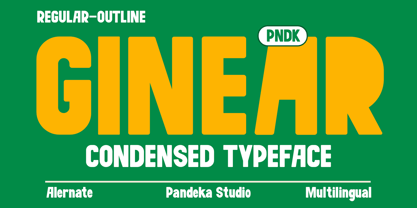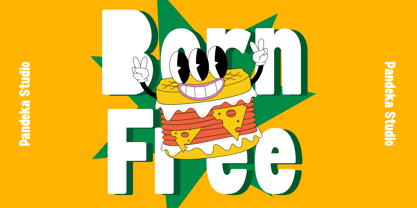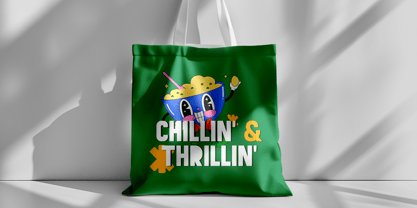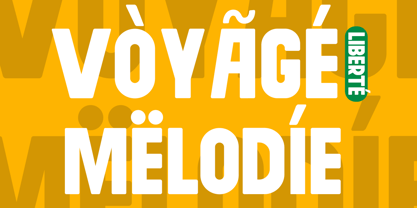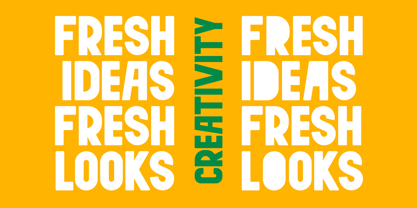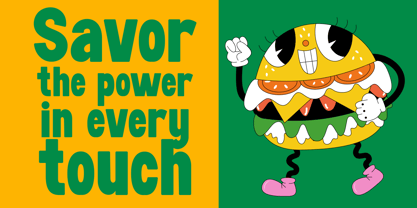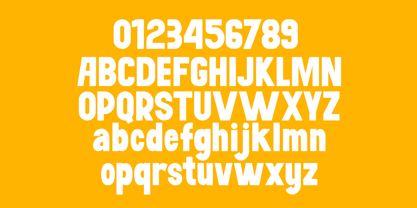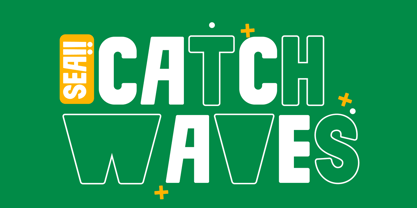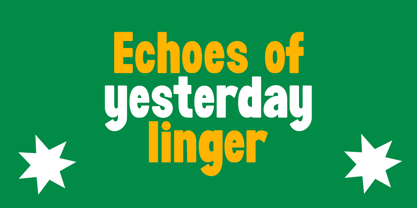
Ginear
by Pandeka Studio
The Ginear Font Family was designed by Sagara Nararya and published by Pandeka Studio. Ginear contains 2 styles and family package options. More about this family
Say hello to Ginear, a playful and condensed sans-serif typeface designed to grab attention and bring life to your projects. With its 2 styles: Regular and Outline, Ginear combines a compact structure with unique shapes that give off a cheerful and vibrant vibe.
Ginear’s letterforms feature carefully rounded corners and balanced proportions, creating a delightful combination of fun and professionalism. The playful yet structured design makes it perfect for a wide range of uses, such as headlines, branding, logos, packaging, posters, and creative designs. Whether you're creating bold statements or playful visuals, Ginear has everything you need to make your ideas stand out.
• 2 Styles: Regular and Outline
• Full Character Set: Uppercase, lowercase, numbers, symbols, and punctuation
Let Ginear add a playful and professional touch to your designs! Whether you're working on branding, creative projects, or eye-catching packaging, this font is the perfect choice to bring your ideas to life.
Designers: Sagara Nararya
Foundry: Pandeka Studio